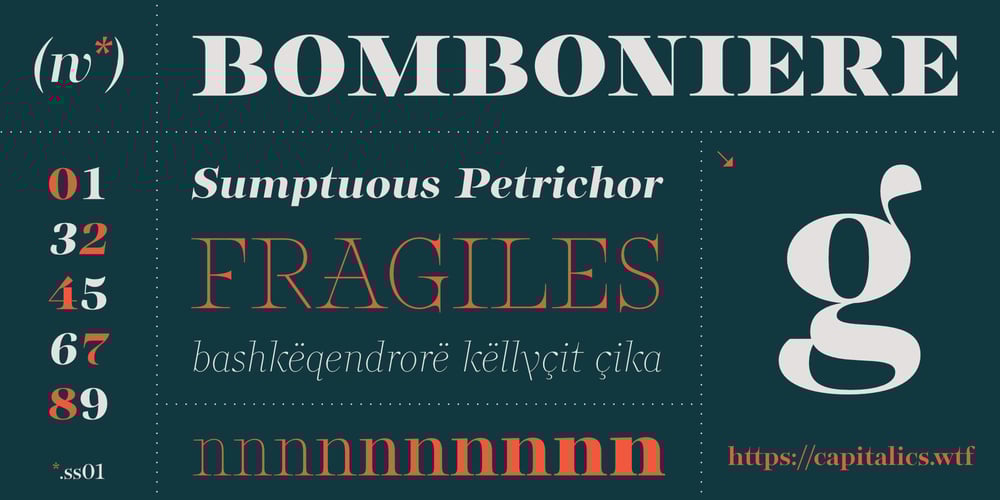
Bomboniere
Bomboniere font
Bomboniere Font Family was designed by Michał Jarociński and published by Dada Studio. Bomboniere contains 20 styles and family package options. Introducing the breathtaking Bomboniere that is set to elevate your designs to new heights! This font boasts tall and thin serifs that lend a sophisticated and elegant feel to any project. With its clean lines and sharp edges, this font is perfect for headlines, titles, and other attention-grabbing text.Designed with meticulous attention to detail, this font is both striking and versatile, making it the perfect choice for a wide range of design projects. Whether you’re creating a logo, designing a poster, or crafting a social media post, this font is sure to make a lasting impression.So why settle for ordinary when you can add a touch of class and sophistication to your designs? Discover the power of elegance!